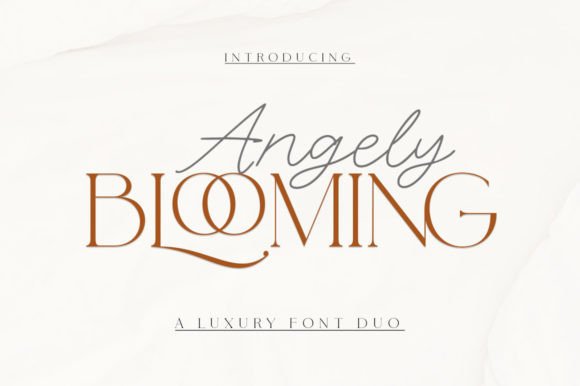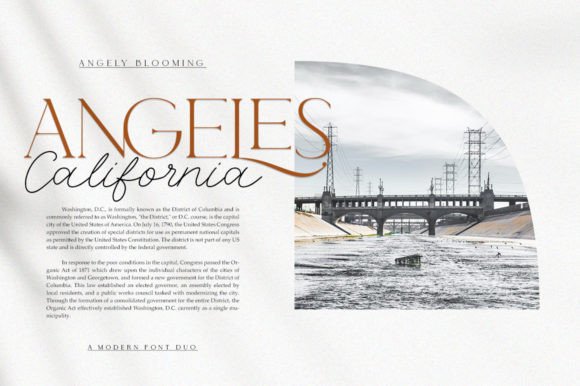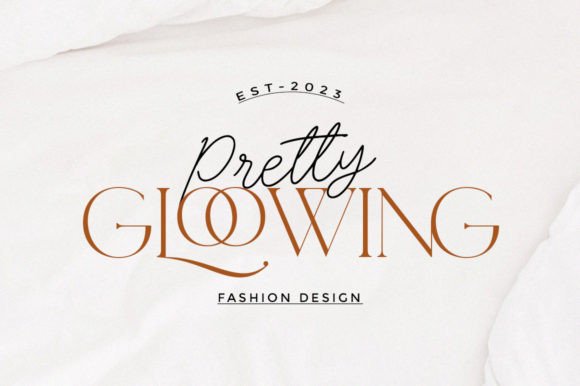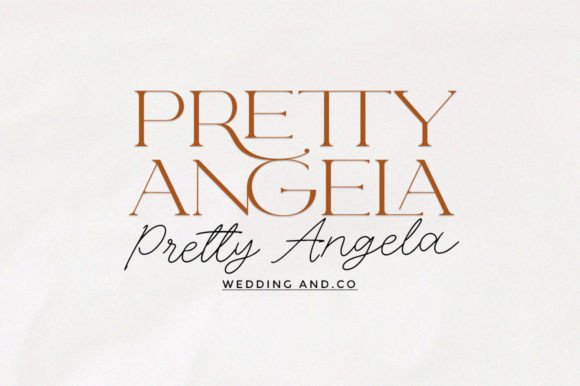
About Angely Blooming
Angely Blooming Duo This professional resource is also powerful because each font has its own magical design. Comes in four versions Script & Serif.
You can use it for almost anything like blog headers, posters, wedding elements, t-shirts, clothing, book covers, business cards, greeting cards, branding, invitations and quotes, and so on.